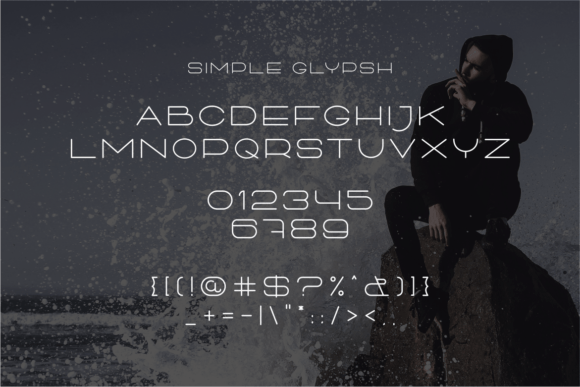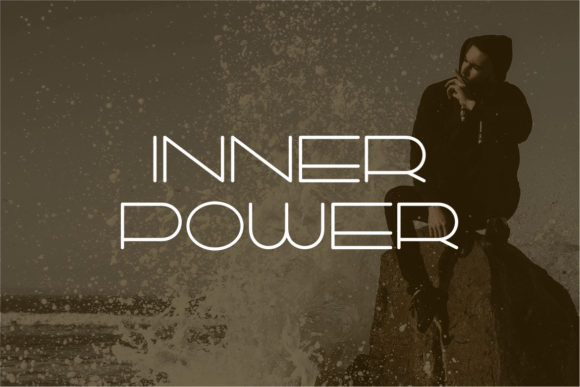
Introduction to Lord Crowdy Font
Have you ever stared at a blank canvas, trying to decide on the perfect font to bring your creative project to life? The moment of truth is finally here. We’re excited to introduce you to Lord Crowdy Font, a stunning sans serif font that exudes elegance and sophistication. Whether you’re designing a luxury brand or a high-end product, Lord Crowdy Font is the perfect design resource to elevate your work.
As a designer, you know how important it is to have a reliable and versatile font that can withstand the demands of a creative project. Lord Crowdy Font delivers, with its wide range of thin lines that add a touch of stability and refinement to any design. And the best part? It’s available for free download, so you can start experimenting with it right away. With its transparent background, you can easily integrate it into your design without any distractions.
Key Features of Lord Crowdy Font
- High-quality design resource ideal for creative projects, including graphics, logos, and digital art.
- Unique, hand-drawn style with a transparent background, allowing for seamless integration into various design elements.
- Perfect for designers seeking a distinctive, creative font for their next project.
Honest Review: Lord Crowdy Font
As a designer, I’m always on the lookout for high-quality design resources to enhance my creative projects. Recently, I stumbled upon the Lord Crowdy Font, and I’m excited to share my honest review with you.
- ✨ Unique and quirky design that adds a touch of elegance to any project.
- ✨ High-resolution and crisp font that’s perfect for both digital and print media.
- ✨ Transparent background, making it easy to work with and customize.
- ⚠️ Limited character set, which may not be suitable for long-form text.
- ⚠️ Not as versatile as some other fonts, which may limit its use in certain creative projects.
Overall, I’m impressed with the Lord Crowdy Font’s unique design and high-quality output. While it may have some limitations, I believe it’s a great addition to any designer’s toolkit. Whether you’re working on a personal project or a commercial client, this font is sure to add a touch of sophistication to your design.
The Lord Crowdy Font is a high-quality design resource ideal for creative projects. Its unique style and versatility make it an excellent choice for various applications.
To get the most out of the Lord Crowdy Font, use it in conjunction with a transparent background to create a seamless design. Experiment with different font sizes and styles to achieve the desired effect.
The Lord Crowdy Font is suitable for various design projects, including:
- Business cards and stationery
- Infographics and presentations